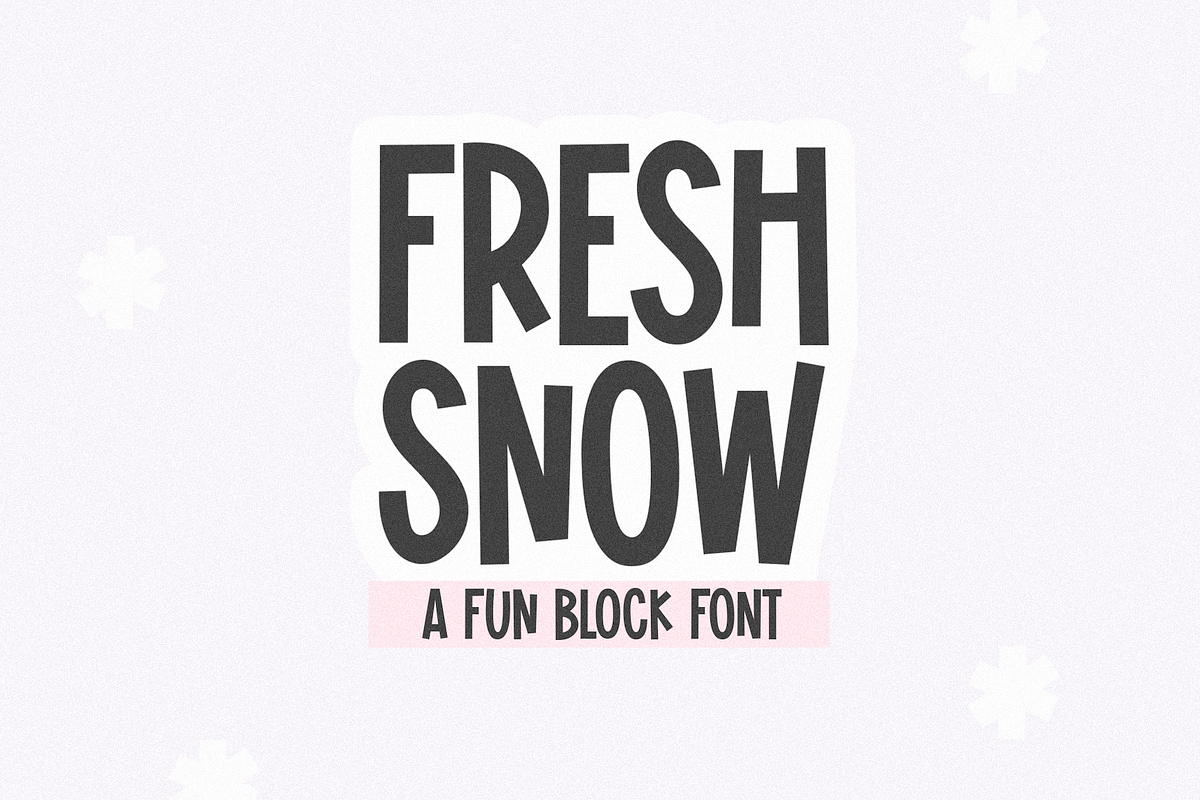
Fresh Snow | Cute Block Font Free Download is a playful and charming typeface that brings a fun, lighthearted vibe to your designs. With its thick, rounded block letters and whimsical style, this font is perfect for children’s books, greeting cards, social media posts, posters, and anything that requires a cute, friendly touch.
Its bold and readable design ensures your message stands out with personality. Fresh Snow includes uppercase and lowercase letters, punctuation, multilingual support, and is compatible with both Mac and Windows systems.